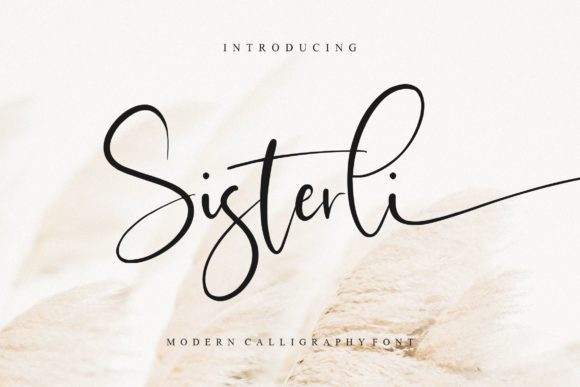
Sisterli Font
Sisterli is an elegant and dainty handwritten font that features sweet and delicate swashes. This original look will appeal to a wide range of crafty ideas, from letterheads and titles, to stationery.